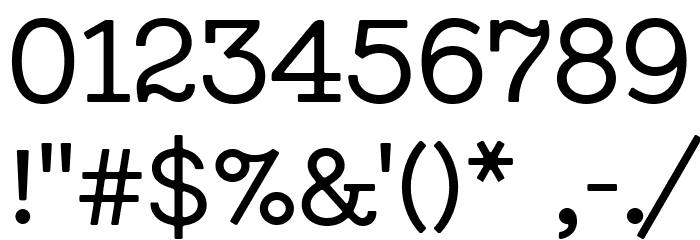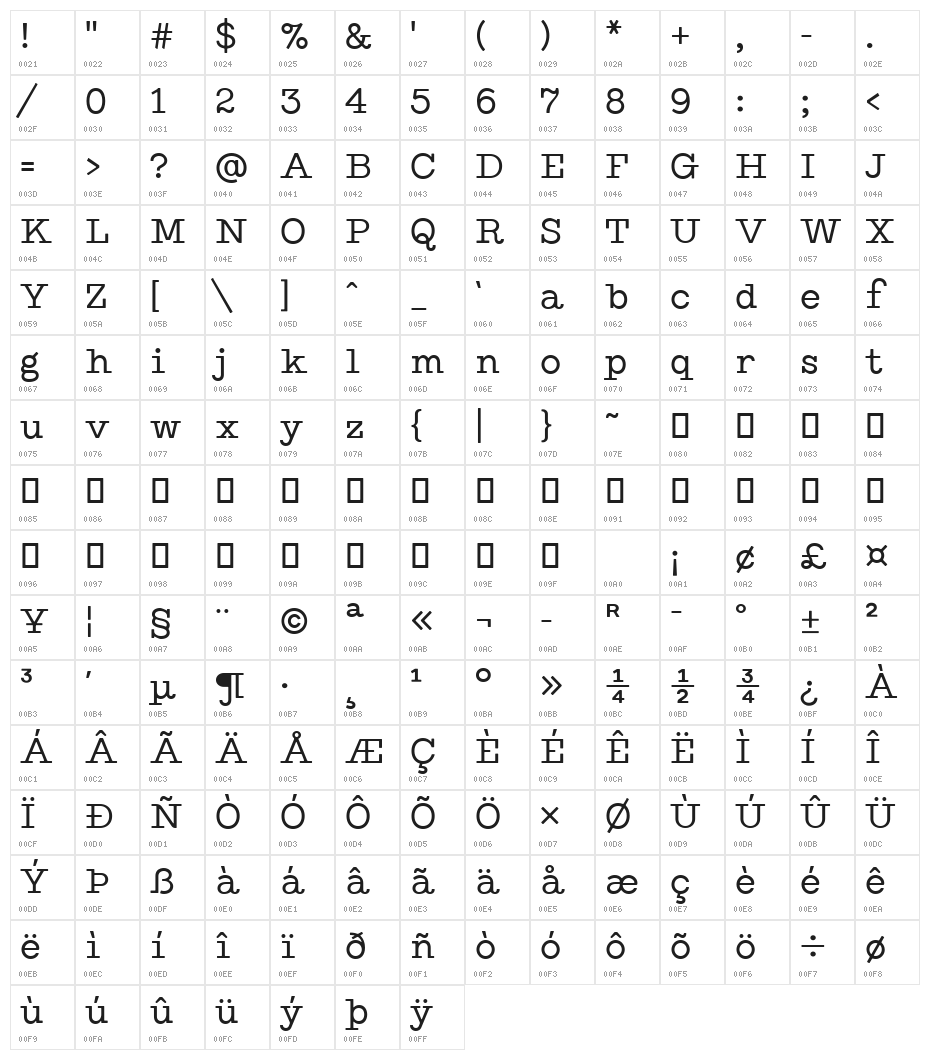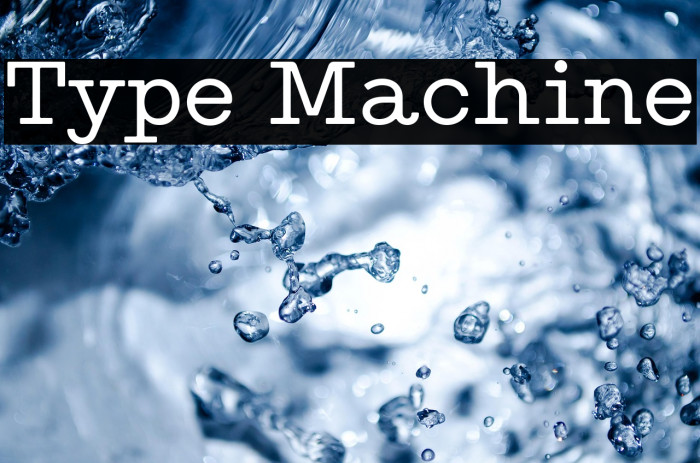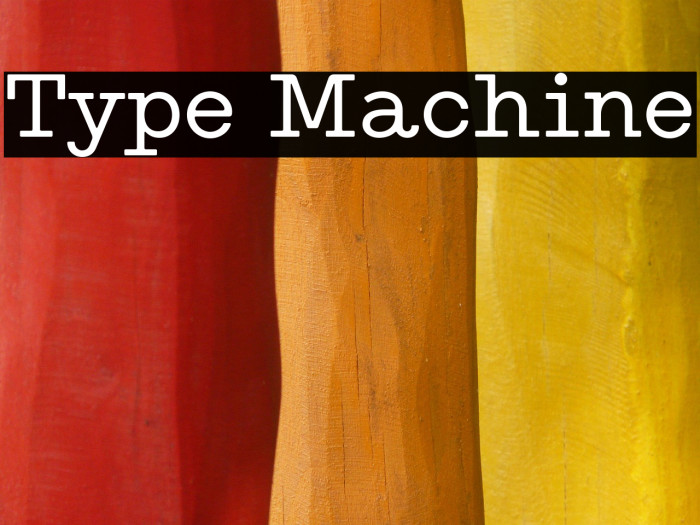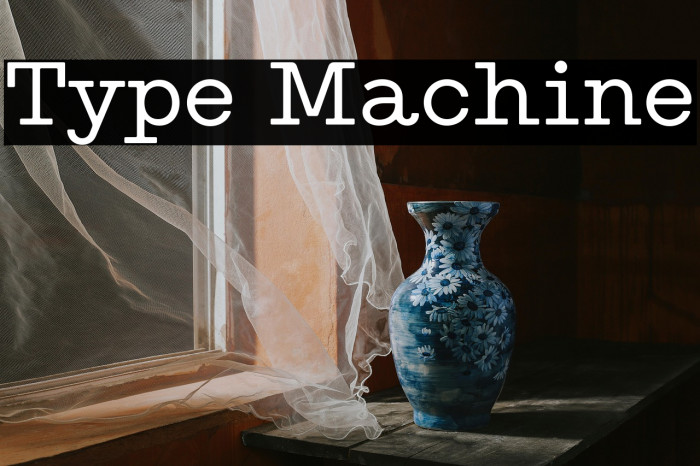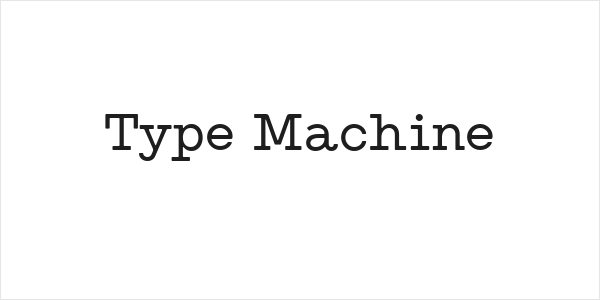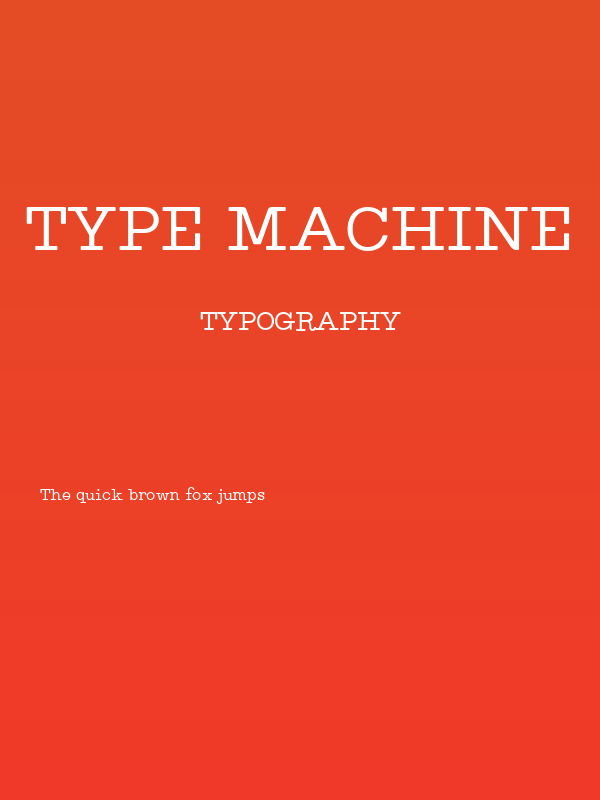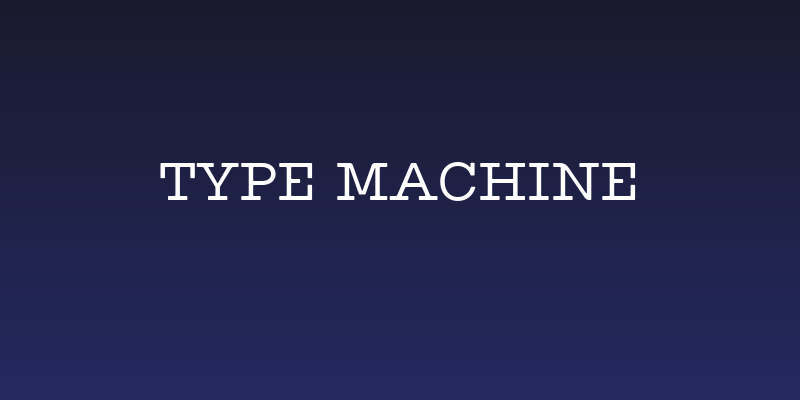
Type Machine Font
Type Machine Description
This font features a classic slab serif design with a mechanical and structured appearance. The characters are bold and have a uniform stroke width, giving them a strong and sturdy look. The serifs are prominent and squared, adding to the industrial feel. The uppercase letters are tall and commanding, while the lowercase letters maintain a consistent height, contributing to a balanced and cohesive appearance. The numerals are clear and easily distinguishable, and the special characters are well-integrated into the overall design. This font exudes a sense of reliability and precision, making it suitable for various applications.
Overall StyleClassic
Proposed ProjectsIdeal for branding, signage, posters, and editorial design where a strong and reliable impression is desired.